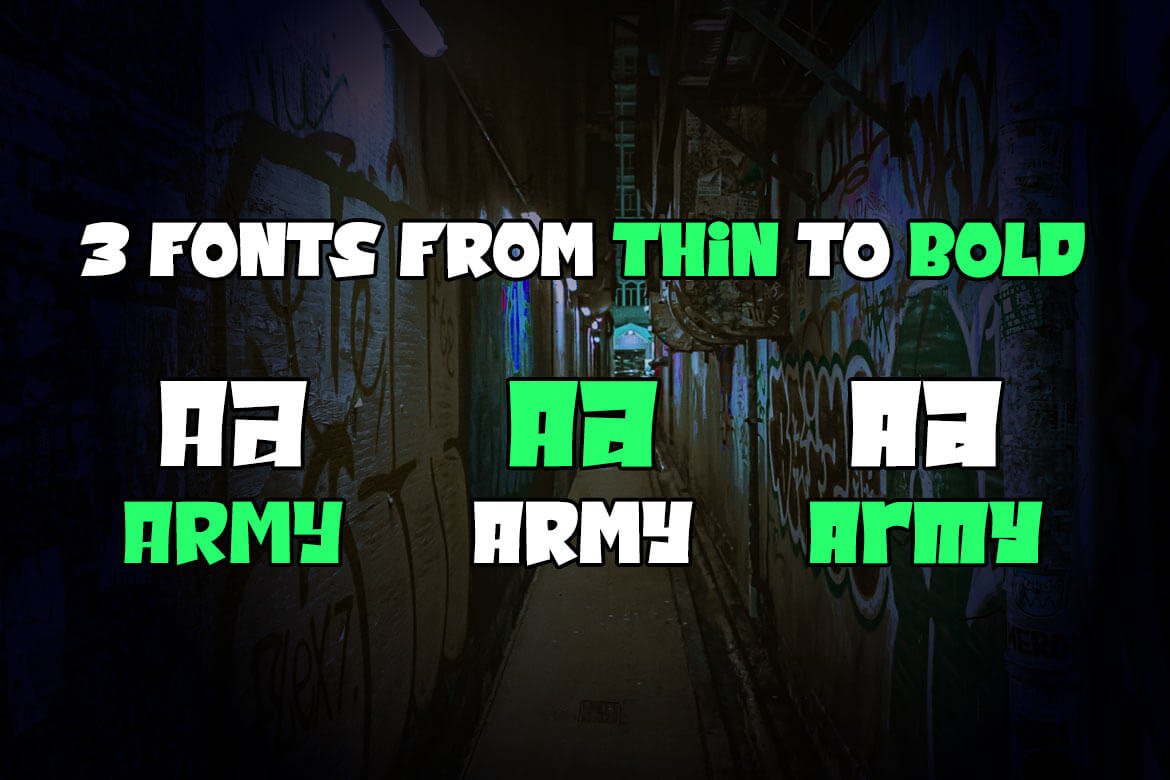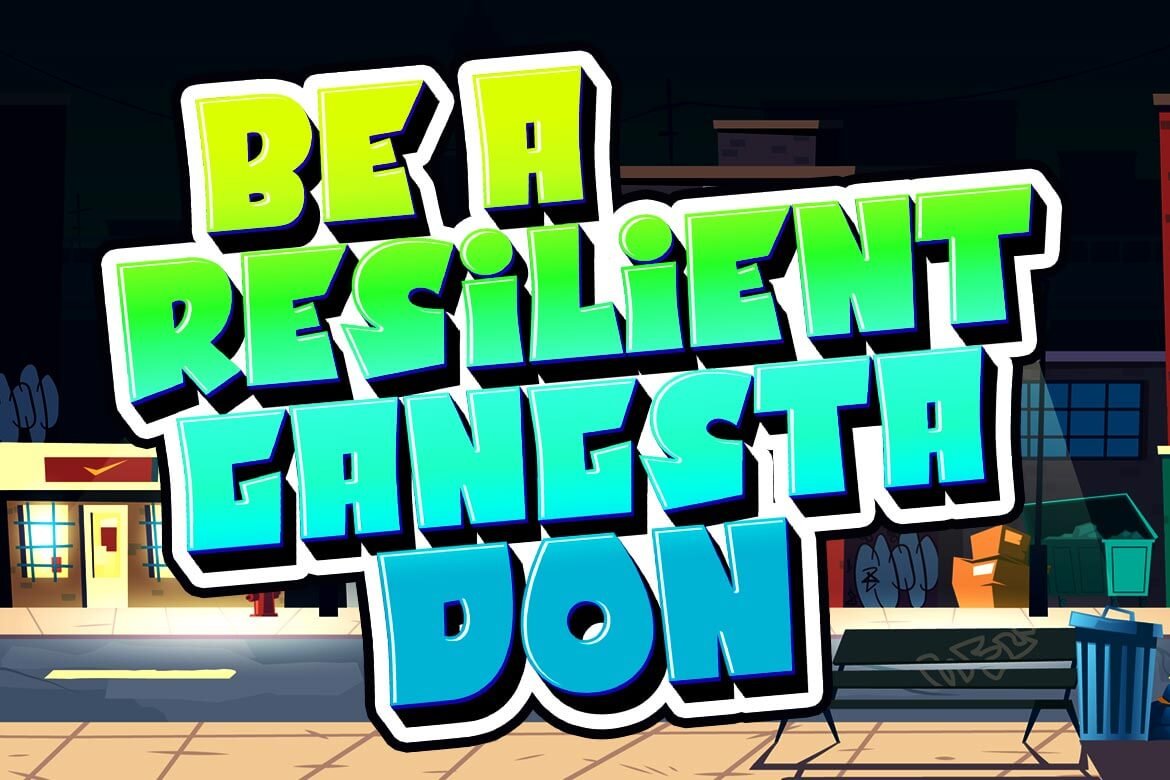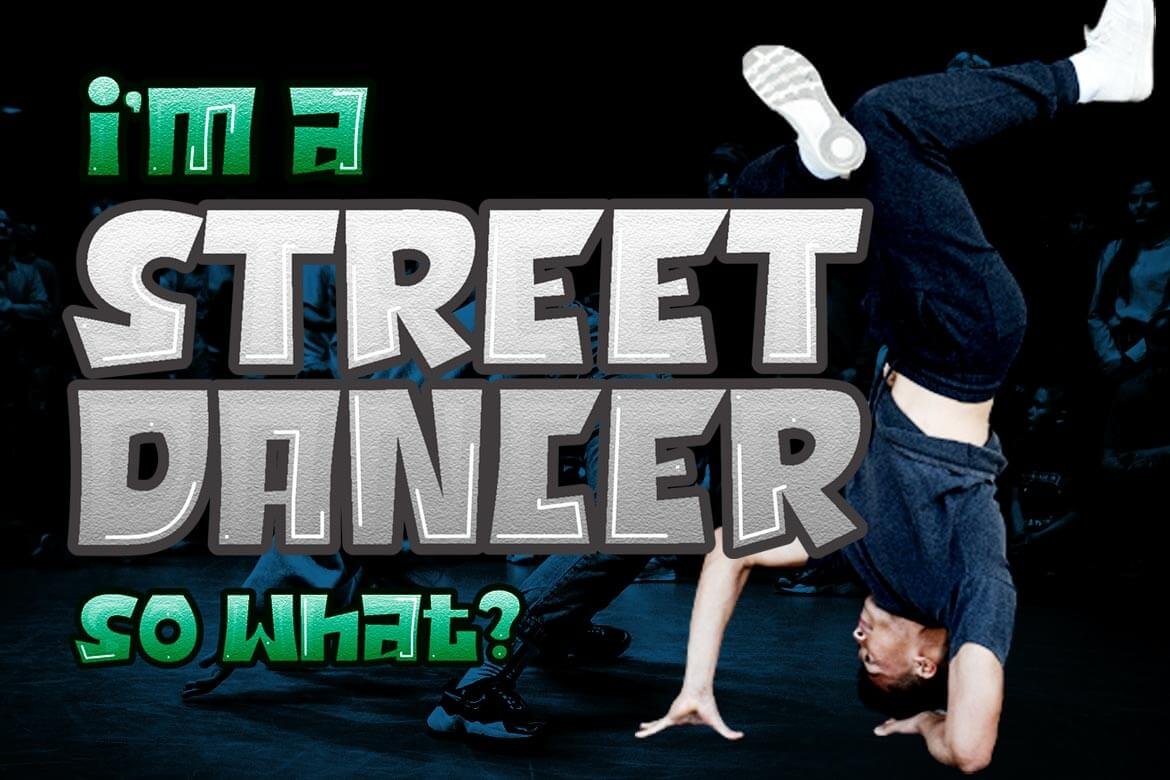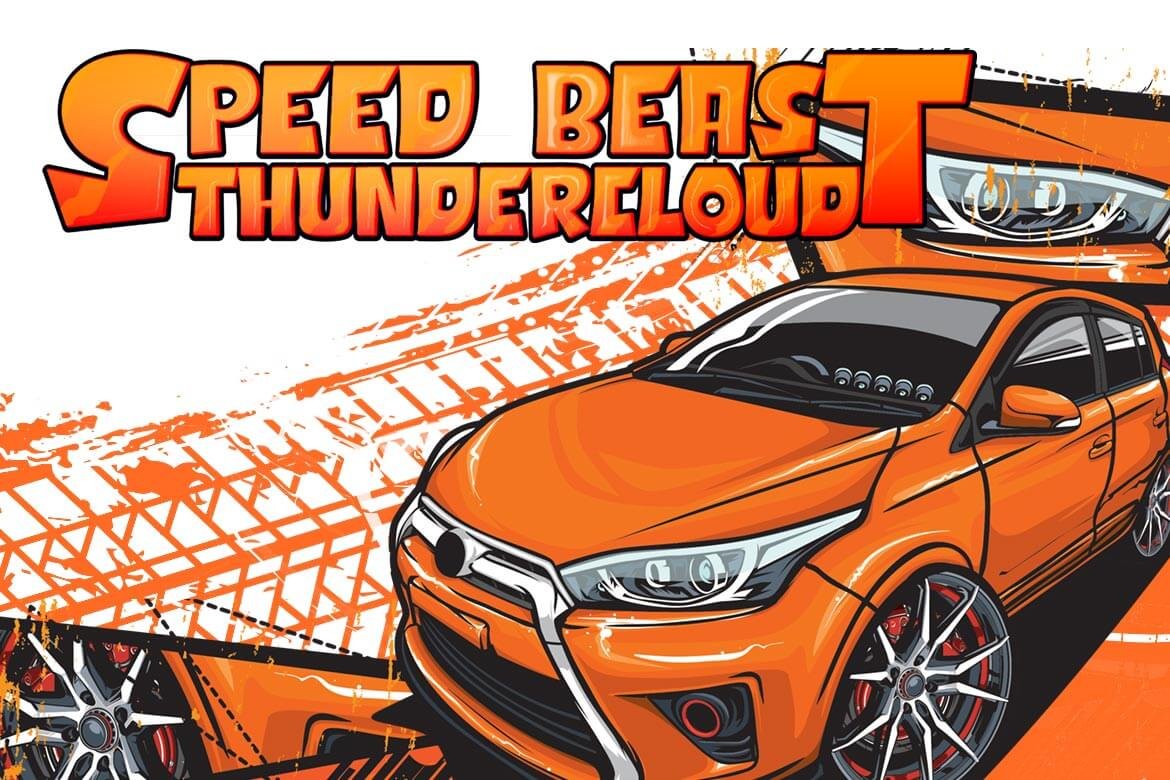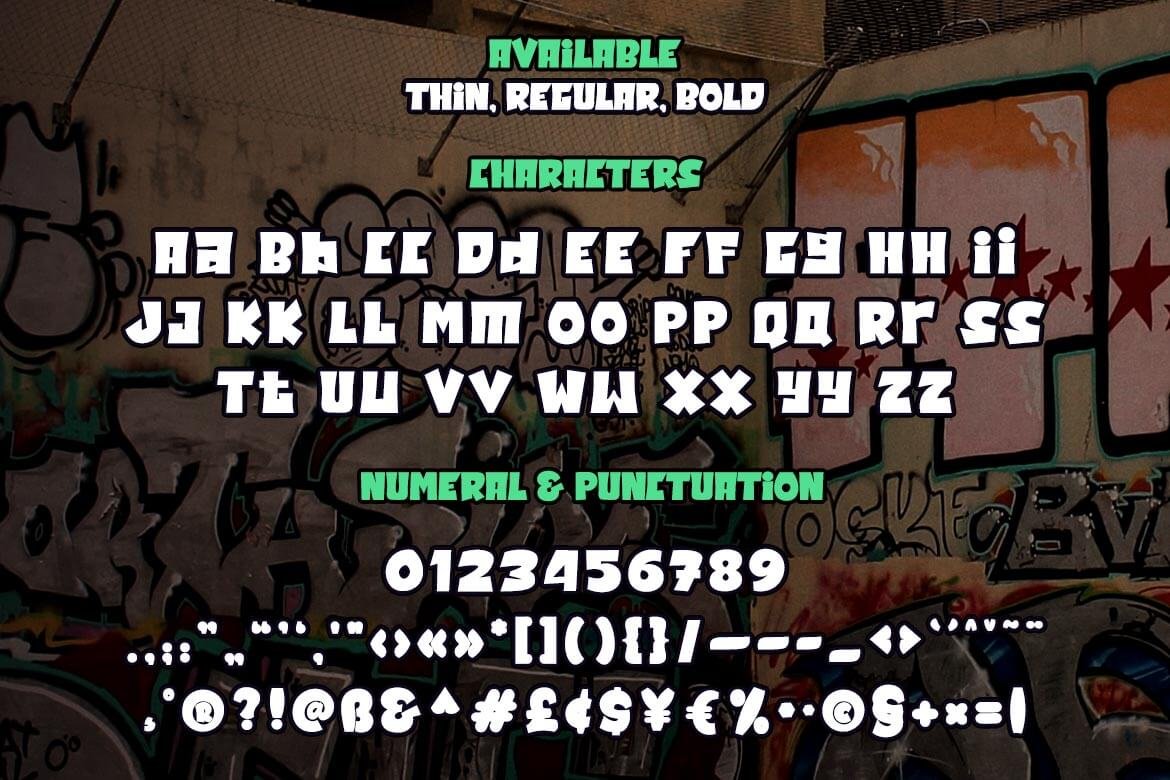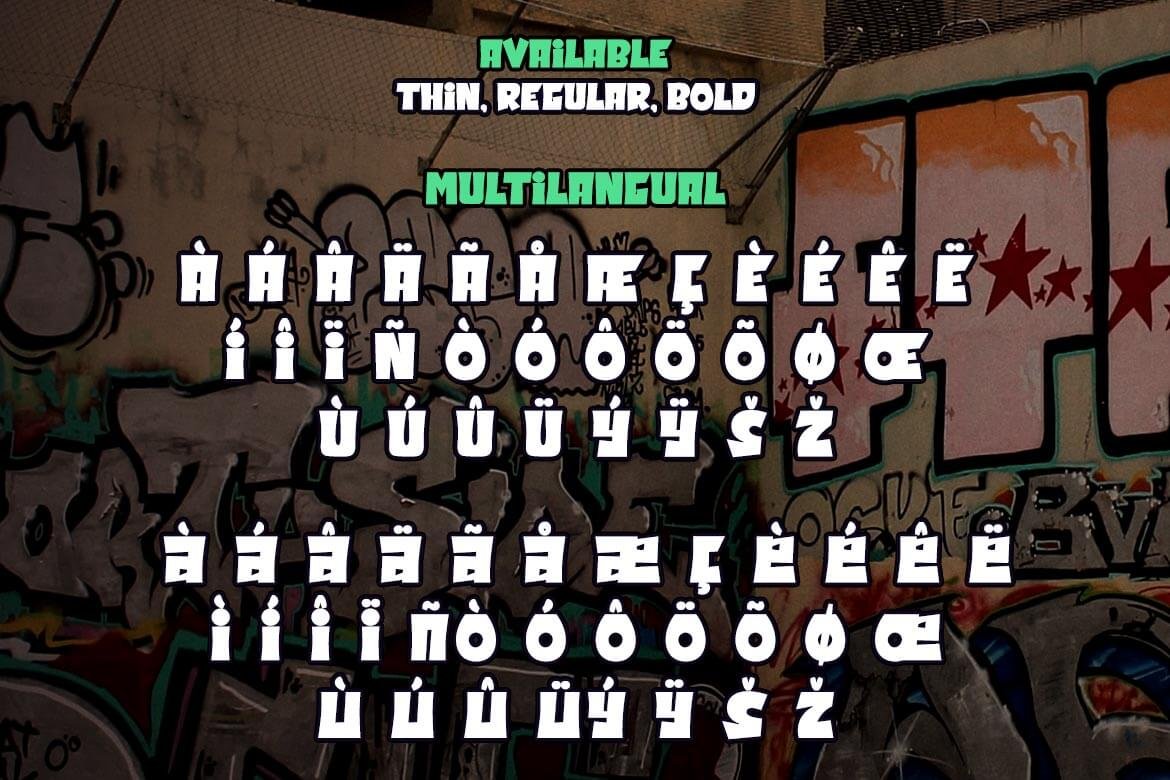
Jatiny
Jatiny is a graffiti display that has been carefully developed so that each letter has a distinct personality, allowing you to create a unique impression when you use it.
Because we give normal thin and thick variants of this font, your entire project will be simple to complete; also, the graphic presentation in your project will be amazing to all of your readers.
Your project will be elegant, professional, and, of course, explosive.
This graffiti font is great for product logos, poster titles, headlines, packaging, film titles, logotypes, gorgeous writing, and trendy graffiti designs, among other things.
Of course, if you utilize this font in your numerous creative projects, they will be perfect and outstanding.
• Fonts include multilingual support